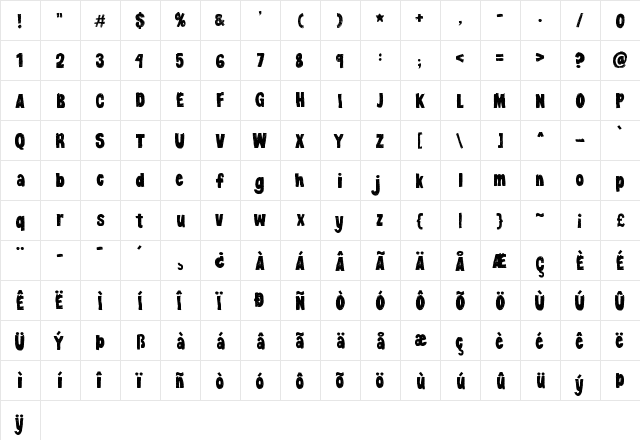
KG Dancing on the Rooftop Regular
Design Context for KG Dancing on the Rooftop Typeface
KG Dancing on the Rooftop takes a measured approach to typography — its balanced proportions and neutral character make it a reliable workhorse for both digital and print work.